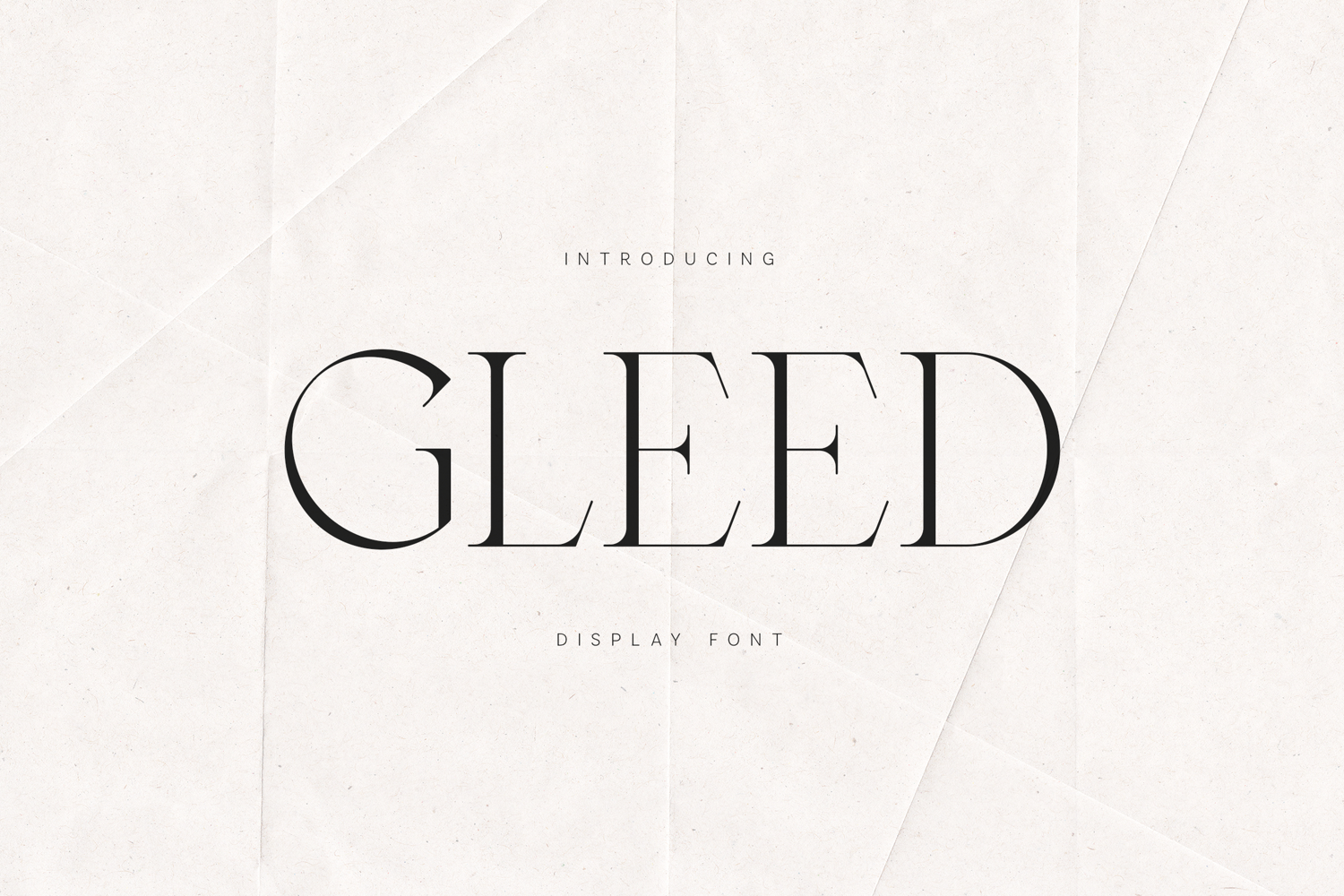
Gleed Elegant Modern Serif Display Font
Gleed is an elegant modern serif typeface crafted with refined proportions, delicate contrast, and timeless letterforms. The font combines classic serif structure with a contemporary typographic approach, resulting in a sophisticated display typeface designed for modern visual communication.
The letterforms feature thin elegant strokes, balanced curves, and subtle contrast, giving the typeface a graceful and refined presence. Each character has been carefully shaped to maintain harmony and rhythm across words and lines, allowing Gleed to perform beautifully in expressive typographic compositions.
Gleed is designed to work especially well in editorial layouts, branding systems, logo design, magazine titles, posters, packaging design, visual identity systems, social media graphics, and modern typographic compositions where refined serif typography enhances the overall visual style.
The font includes uppercase letters, lowercase letters, numerals, punctuation, symbols, and extended multilingual support, allowing designers to use the typeface across a wide range of languages and design environments.
Its elegant construction makes Gleed particularly suitable for headlines, titles, large typography layouts, and sophisticated editorial compositions, where the refined serif structure and balanced letterforms can create a strong visual identity.
With its combination of modern elegance, refined serif structure, and balanced typography, Gleed provides a versatile typeface suitable for contemporary design projects that require clean, sophisticated serif lettering.